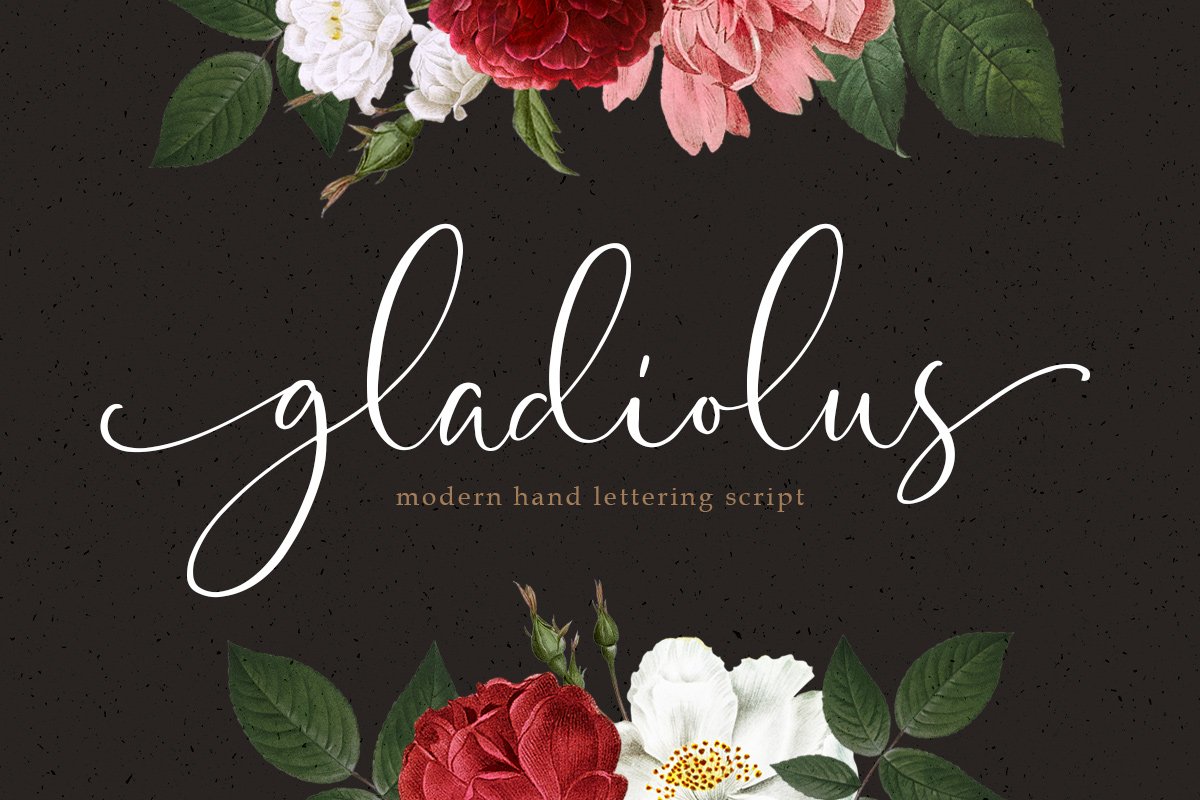
Gladiolus - Modern Calligraphy
Gladiolus Script
Introducing, Gladiolus, a beautiful modern calligraphy typeface. The swirls and swashes will make your project with feminine theme looks pretty even more. Very suitable to be used as headline, instagram post and stories, logos, magazines, books, greeting / wedding cards, packaging, fashion, make up, stationery, novels, labels or any type of advertising purpose.
• uppercase & lowercase
• numbers and punctuation
• multilingual
• ligatures
• alternates
• swashes
• contextual alternate